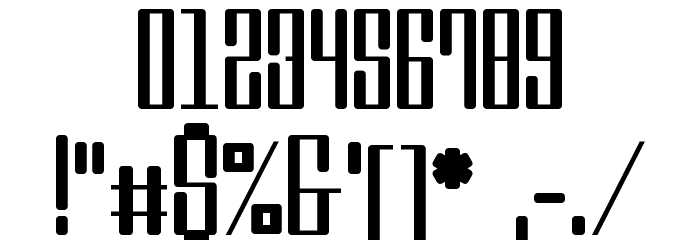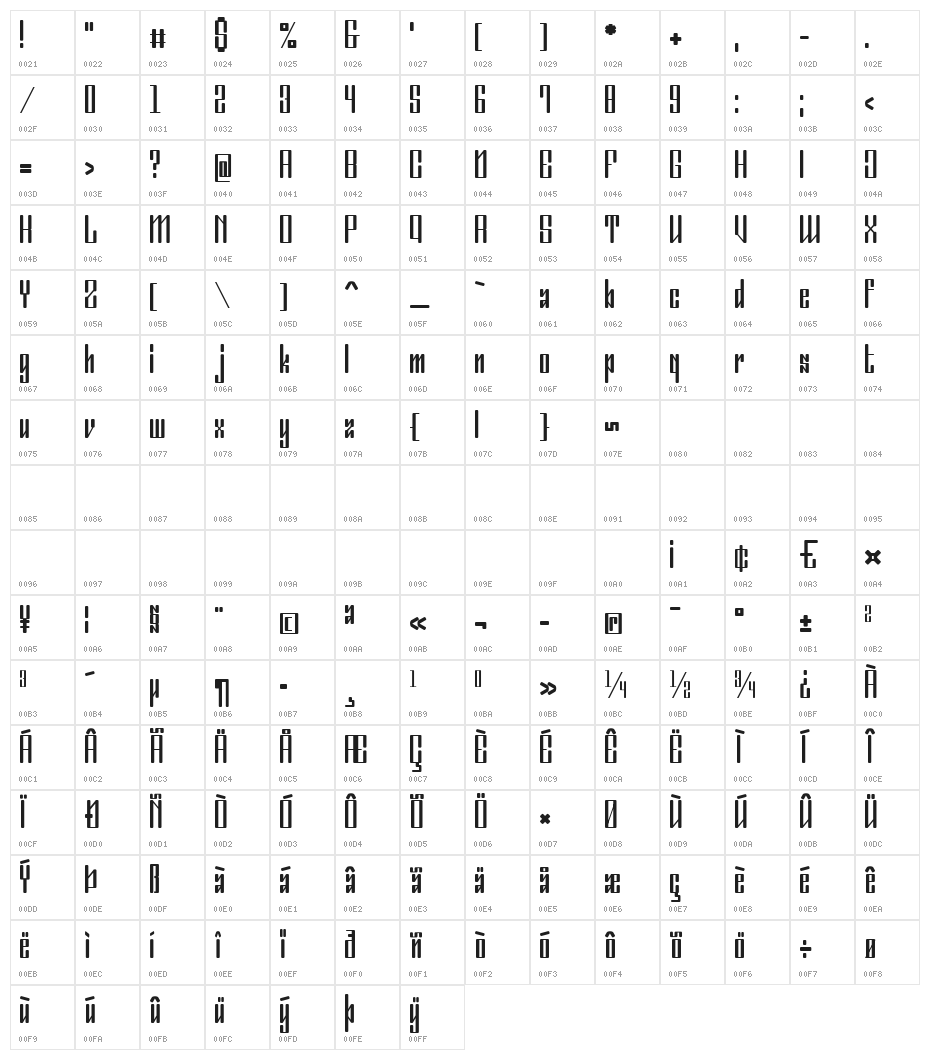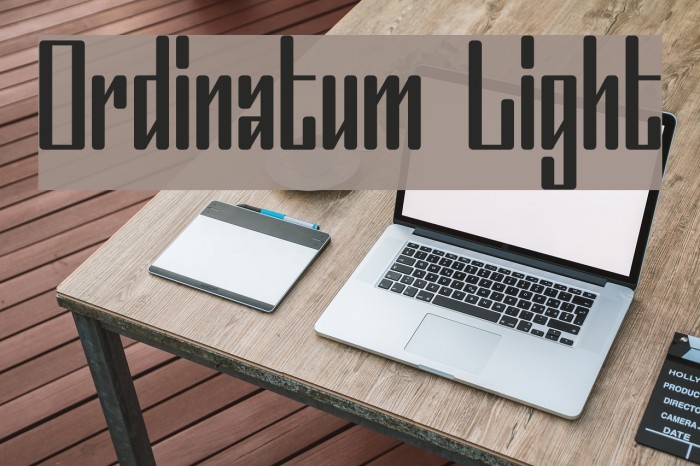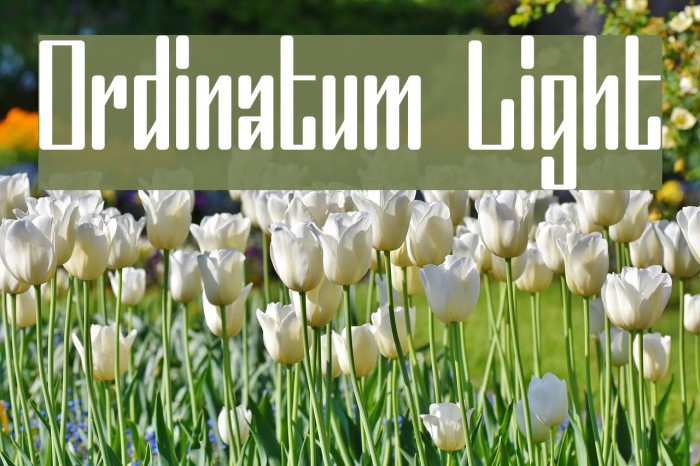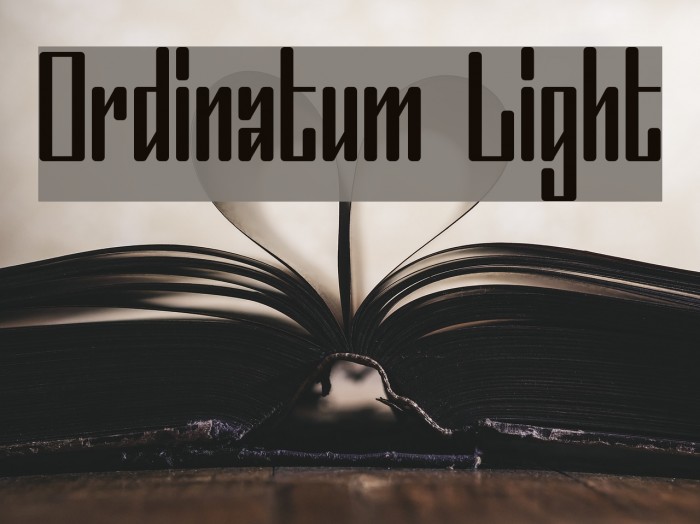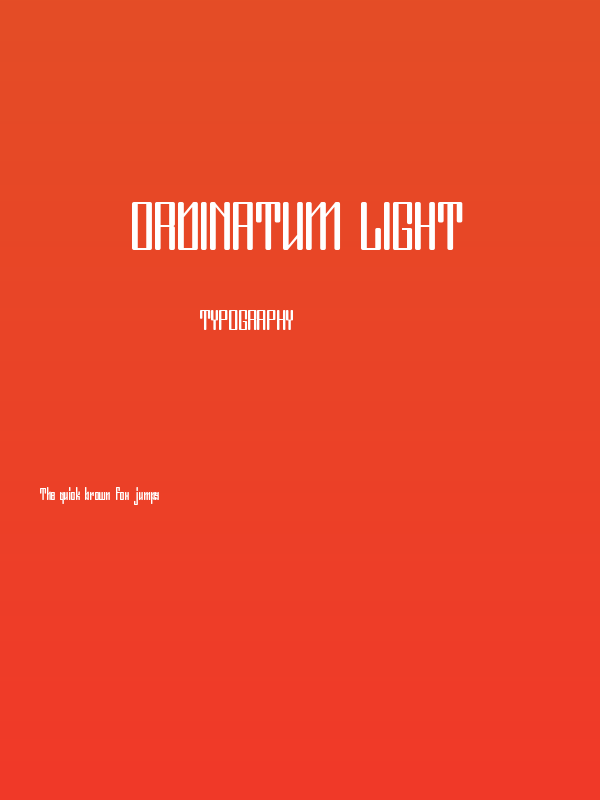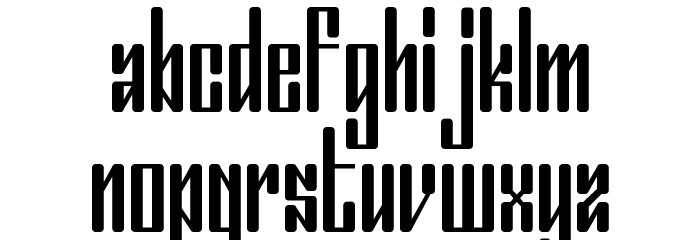
Ordinatum Light Font
Ordinatum Light Description
This font features a geometric and structured design with a tall, narrow appearance. The characters are uniform in width, giving it a monospaced feel, though it is not strictly monospaced. The vertical strokes are prominent, while the horizontal strokes are thinner, creating a medium contrast. The overall style is modern and slightly futuristic, with a clean and minimalistic aesthetic. The uppercase letters are particularly tall, while the lowercase letters maintain a consistent height, contributing to a cohesive look. The numerals and special characters follow the same design principles, ensuring uniformity across all glyphs.
| Proposed Projects | Ideal for technology branding, modern posters, and futuristic design projects. |